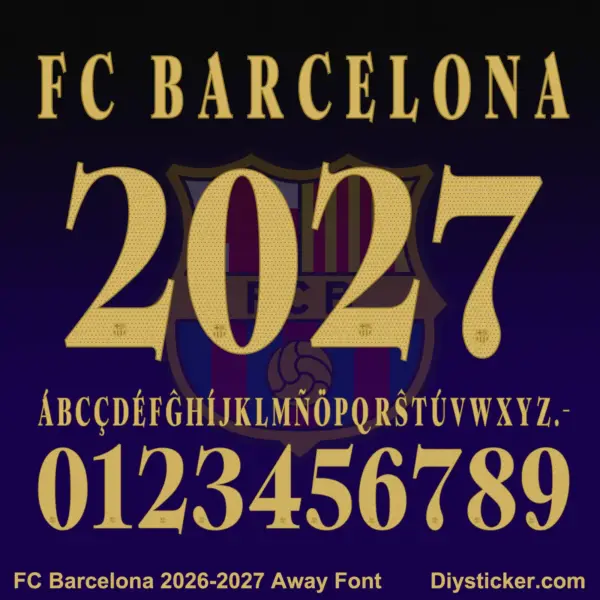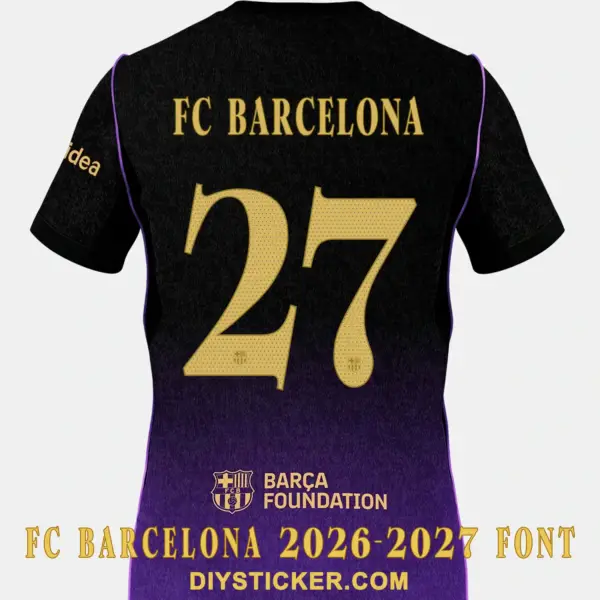
FC Barcelona 2026-2027 Away Font & Numbers Download
Equip your workshop floor with the verified FC Barcelona 2026-2027 Away font master file bundle, engineered specifically for custom uniform printers, sports apparel shops, and football jersey collectors. This premium digital asset delivers a perfect recreation of the classic serif typography, royal gold metallic tones, subtle micro-dot mesh textures, and official baseline FC Barcelona club crest placeholders deployed by Blaugrana. Bypass the time-consuming process of manually tracking low-fidelity photos—our production-ready assets provide installable desktop system typefaces and clean cutting vectors for immediate download right after checkout.
Club-Accurate Details: Captures the elegant condensed serif letterforms, gold mesh micro-perforation infill patterns, and official baseline Barça crest placeholders.
True Replica Detailing: Every asset accurately maps the unique character tracking, classic flared serif profiles, micro-perforated mesh textures, and precise baseline FC Barcelona crest emblem markers required for collector-grade apparel customization.